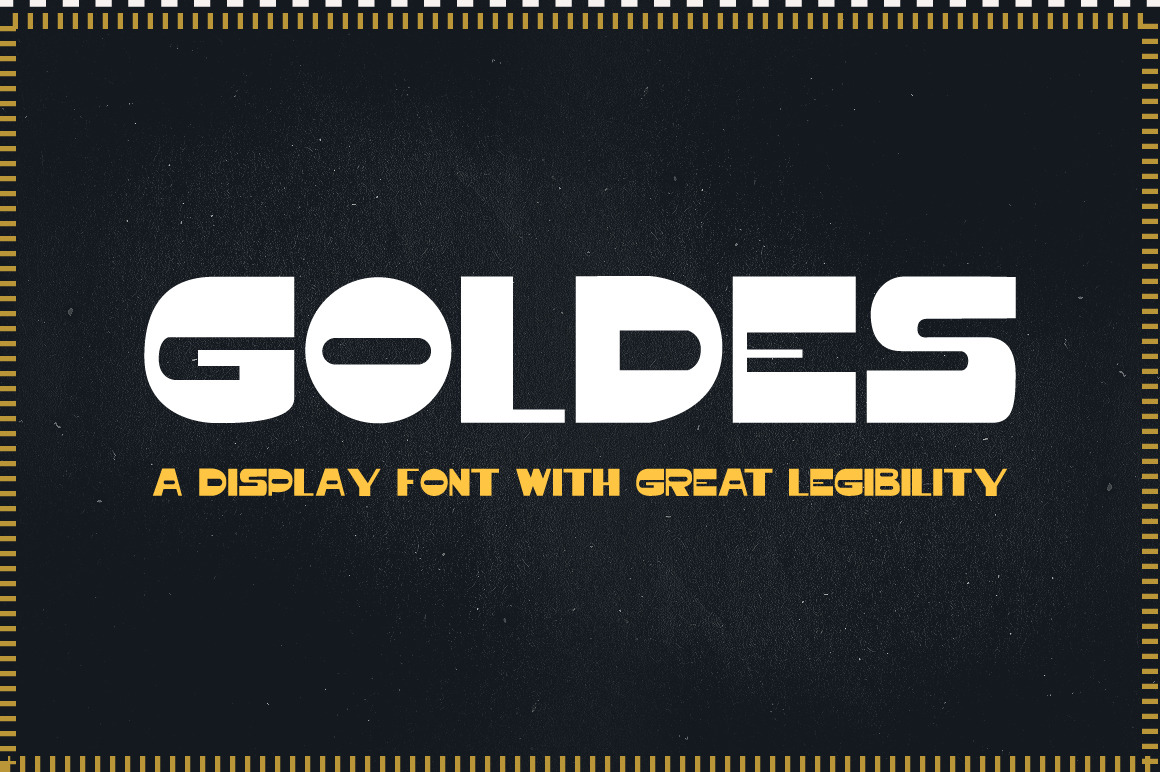
Goldes Font
Goldes is a display font with great legibility and elegance. This font is a mixture of ancient and modern letterforms those sync well with design. Every single glyph had designed with care and love. This typeface comes with uppercase, numerals and punctuations.
Goldes is an amazing kind of typeface that can spice up your awesome titles and headlines. This will give you the unique style for your designs, that's for sure.